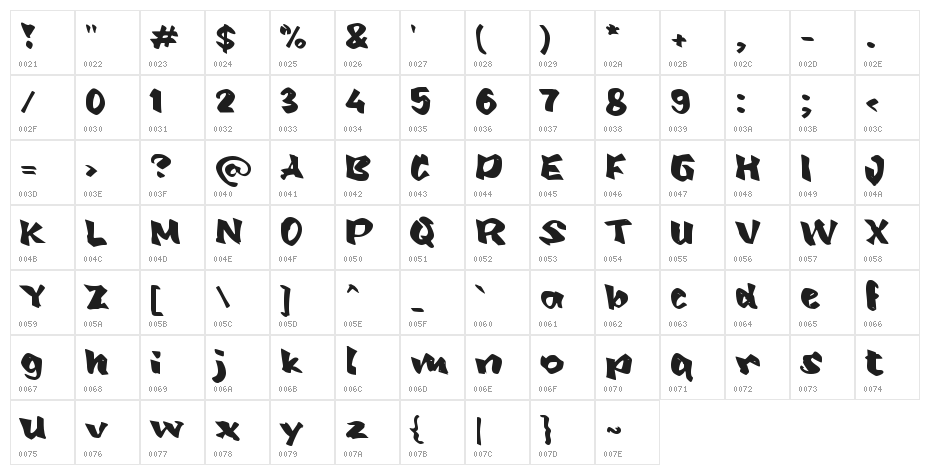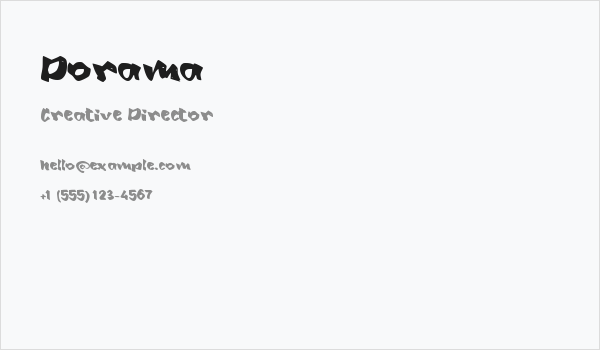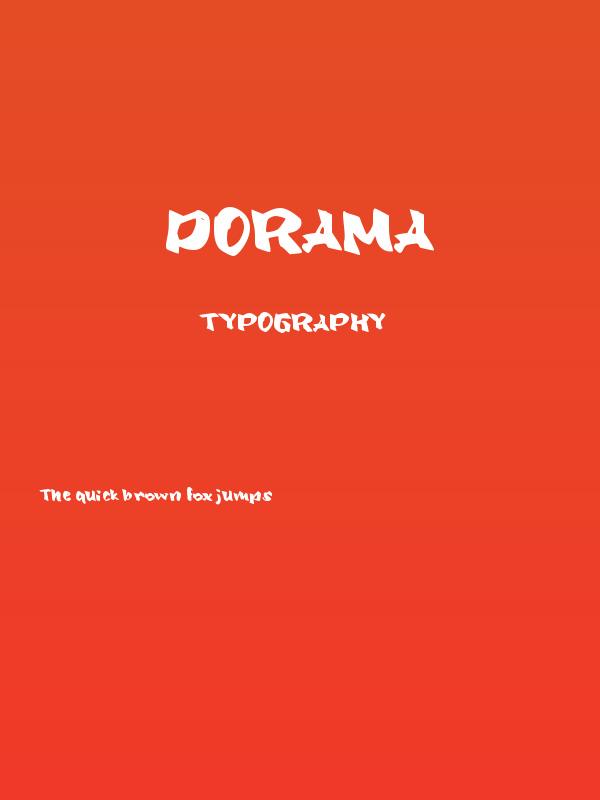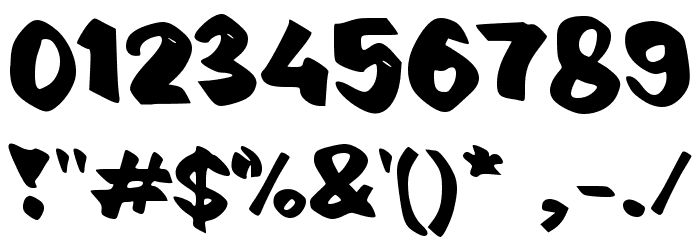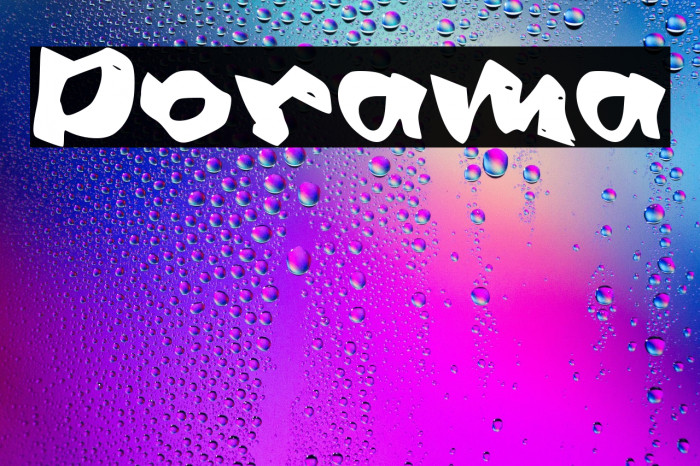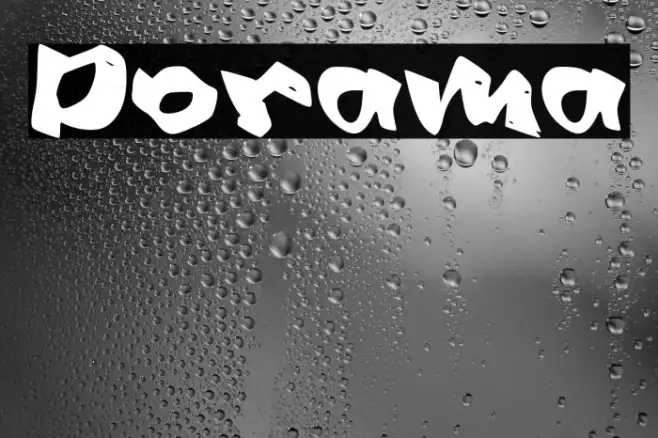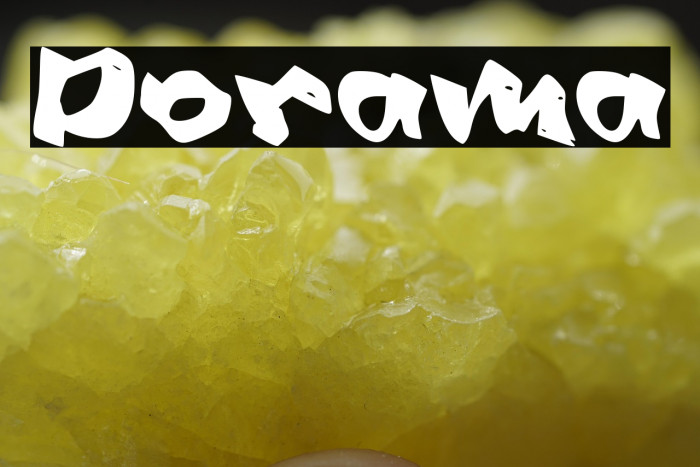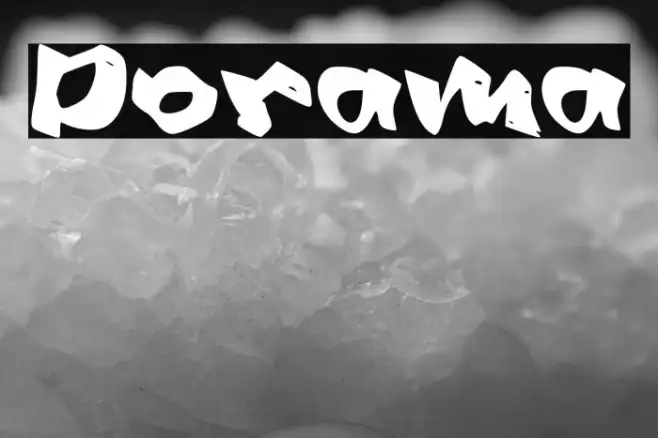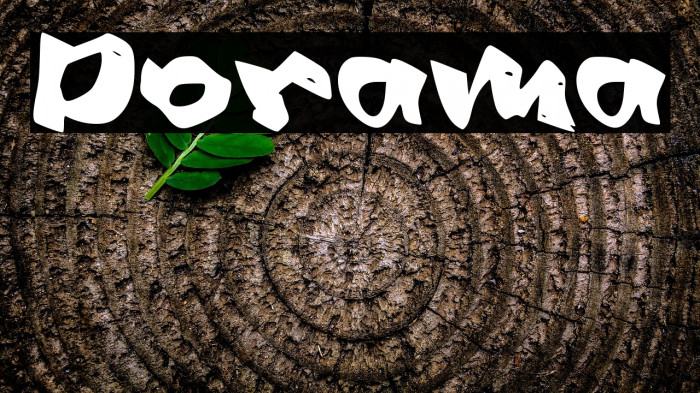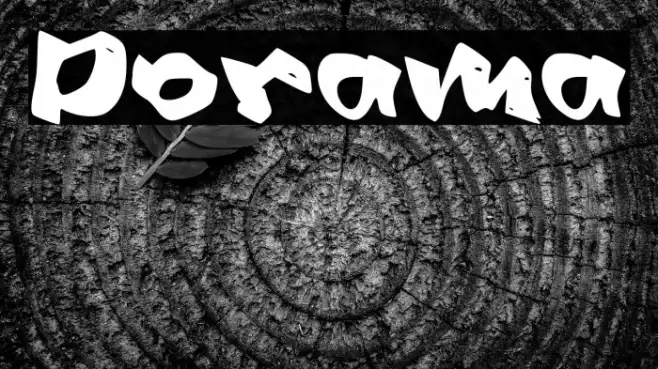
Dorama Font
Dorama Description
This font exhibits a bold and dynamic style, characterized by its thick, brush-like strokes that convey a sense of energy and movement. The uppercase letters are robust and slightly irregular, giving them a handcrafted appearance. Lowercase letters maintain this energetic style, with unique shapes that add to the font's distinctive look. The numerals are equally bold, ensuring they stand out in any composition. Special characters are designed to match the overall aesthetic, making them suitable for creative and expressive design projects. This font is ideal for projects that require a strong visual impact, such as posters, branding, and headlines.
| Proposed Projects | Ideal for posters, branding, headlines, and any project needing a strong visual impact. |